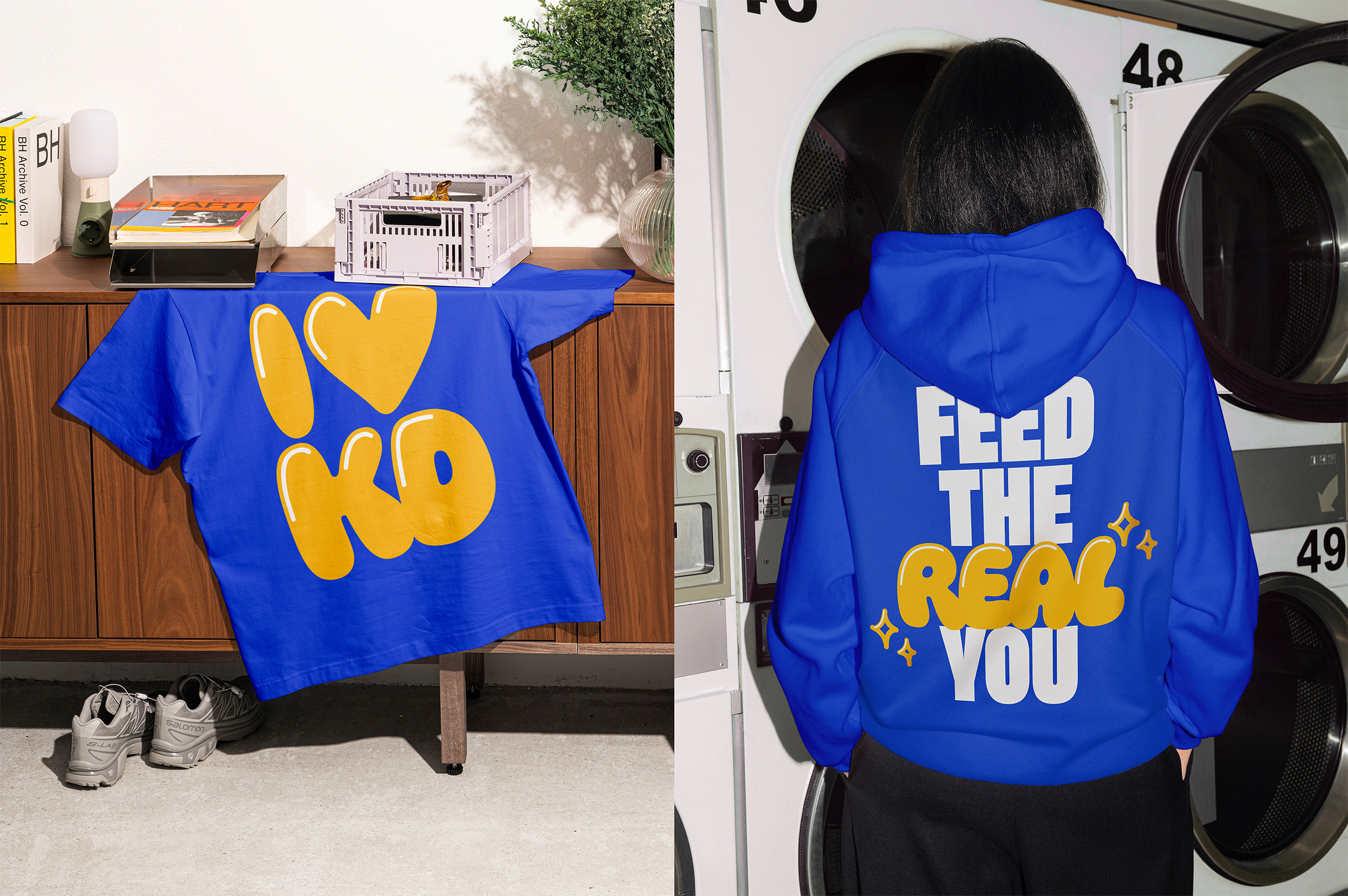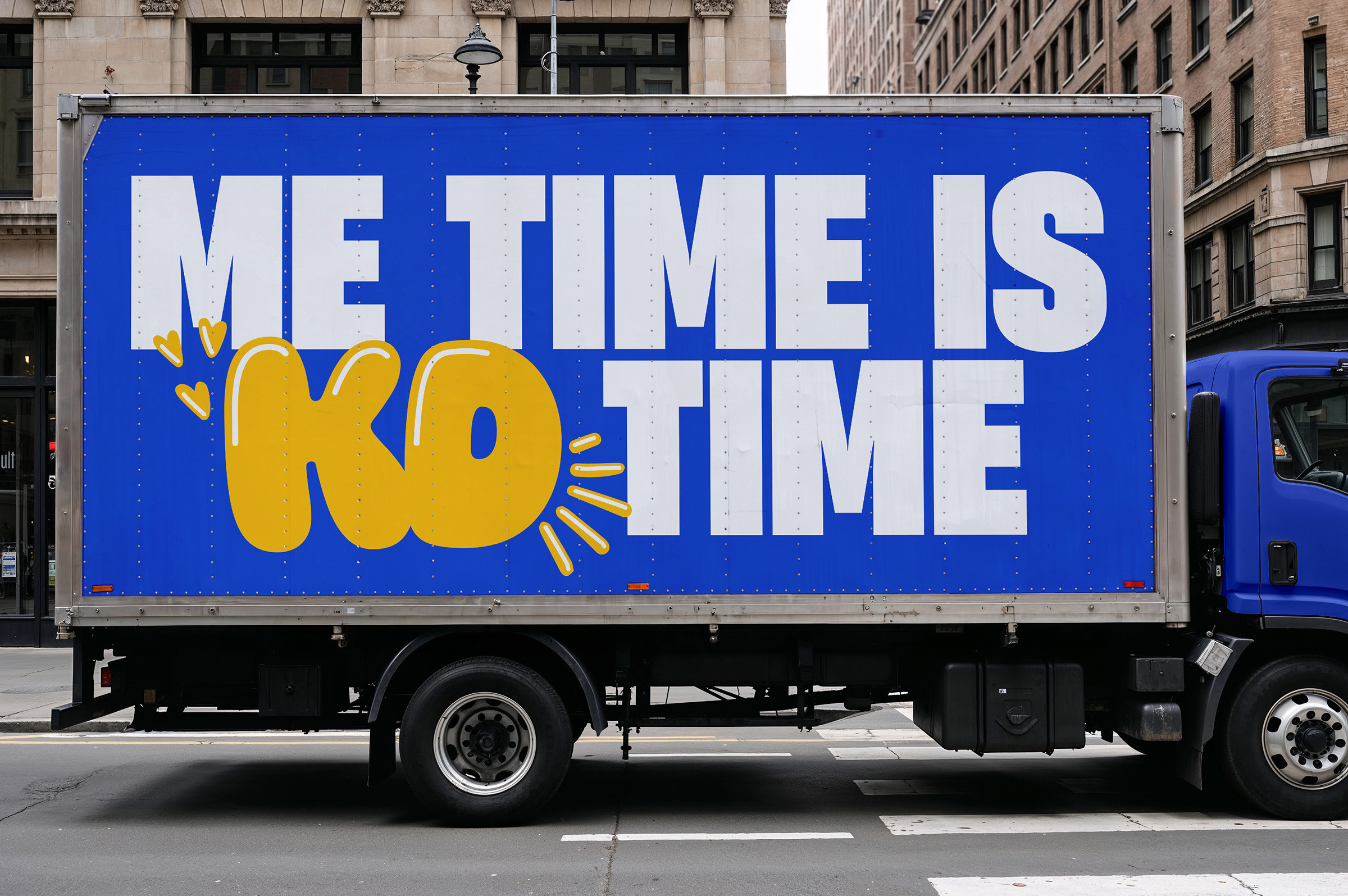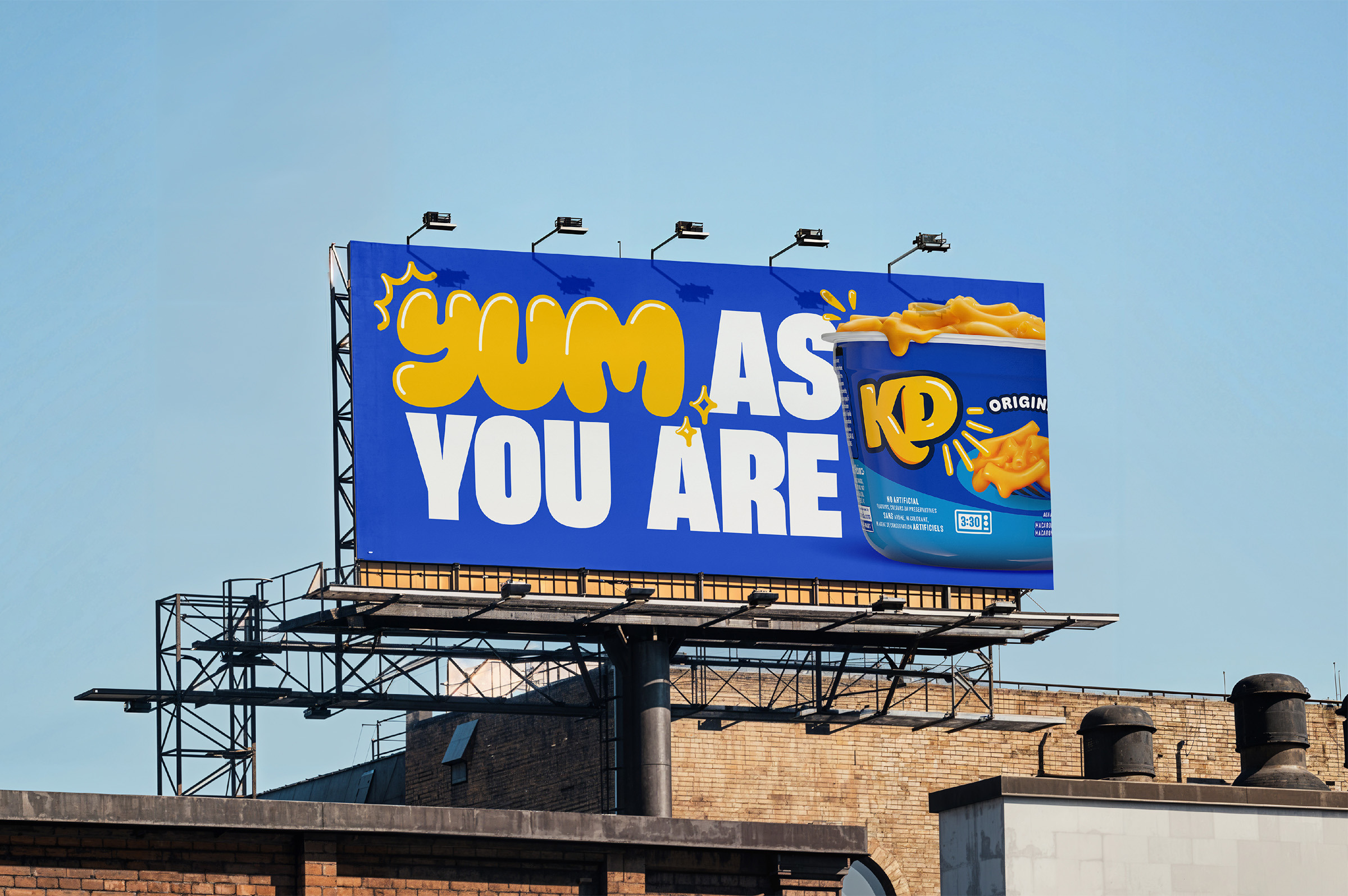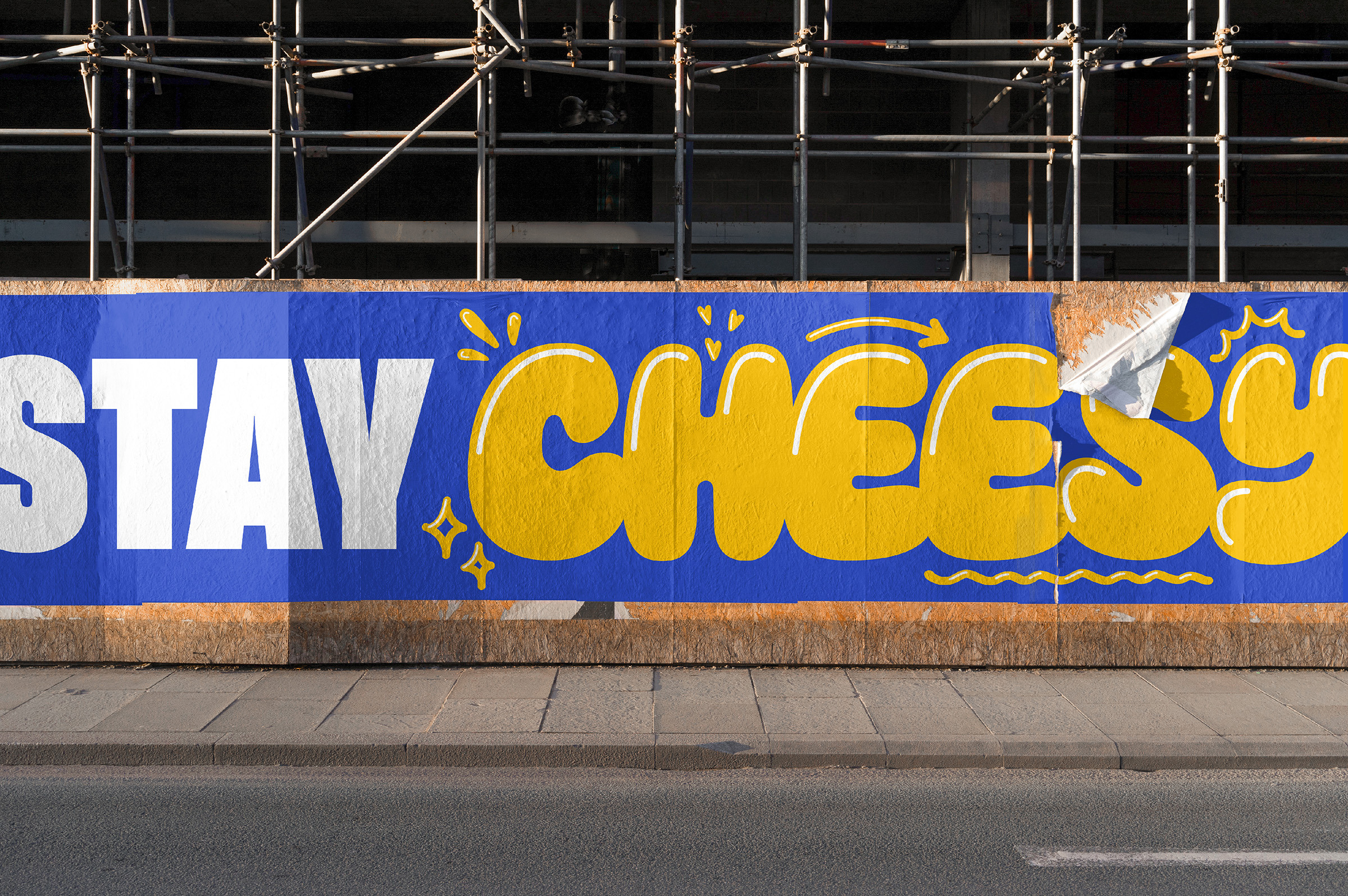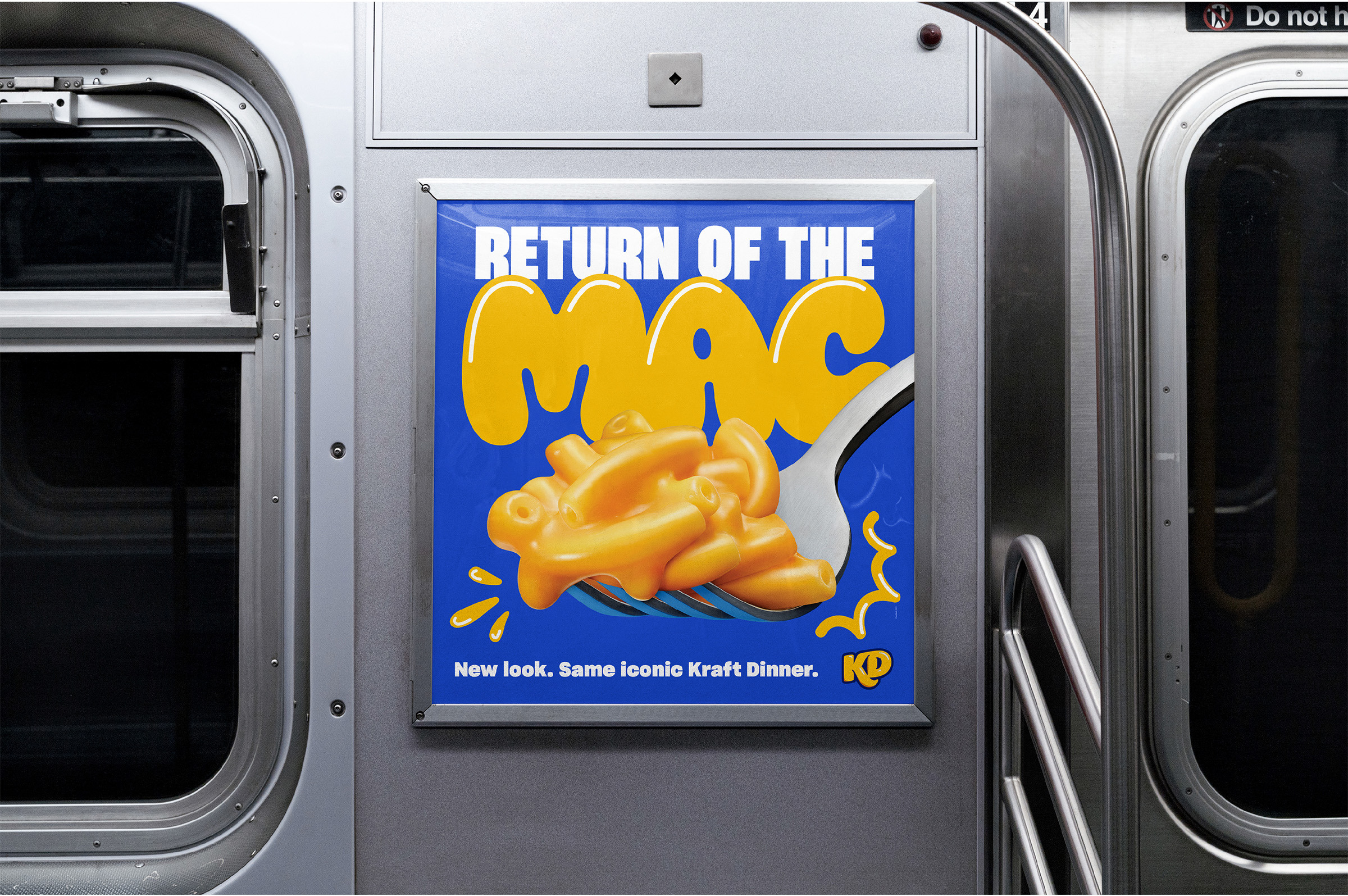
Kraft Mac & Cheese
We worked with Rethink on the rebrand of Kraft Mac & Cheese—or how their Canadian audience refers to the classic—KD. Starting with many rounds of sketches and iteration on joyful and bulbous letterforms, we eventually landed on a two-layer color font that was put into pot, cooked for 8 minutes, and came out great!
Custom Typeface
KD Exploratory
Early exploratory directions.
KD Character Set
The finished characterset showing alternate forms for each letter and number.